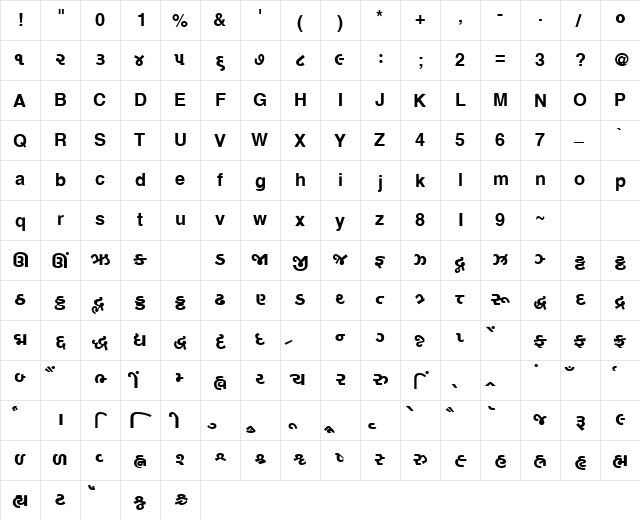
AkrutiOfficeLekha Bold
Design Context for AkrutiOfficeLekha Typeface
AkrutiOfficeLekha is a composed and adaptable typeface that performs quietly and consistently across a wide range of design contexts. The heavy weight commands attention and anchors typographic hierarchies.